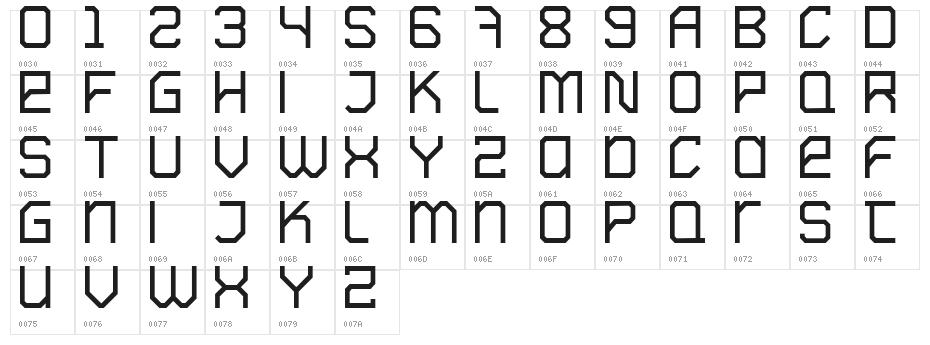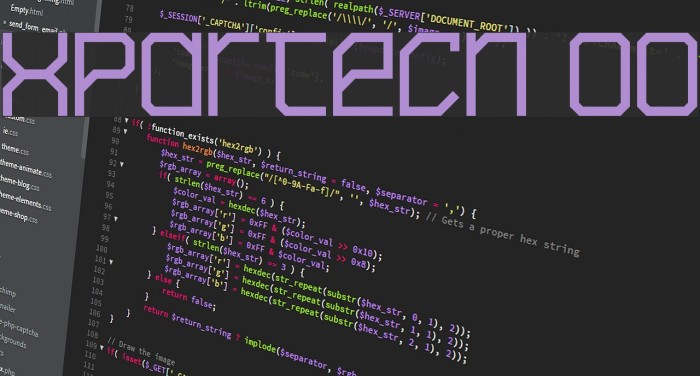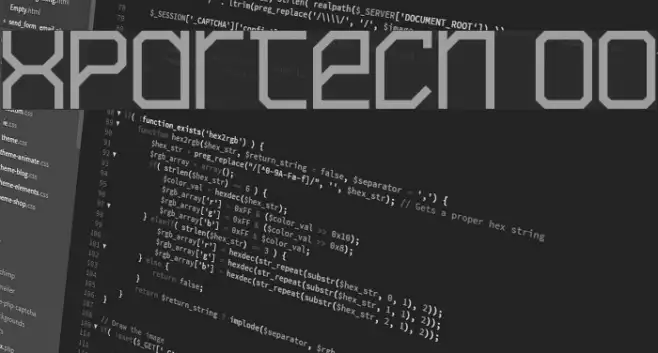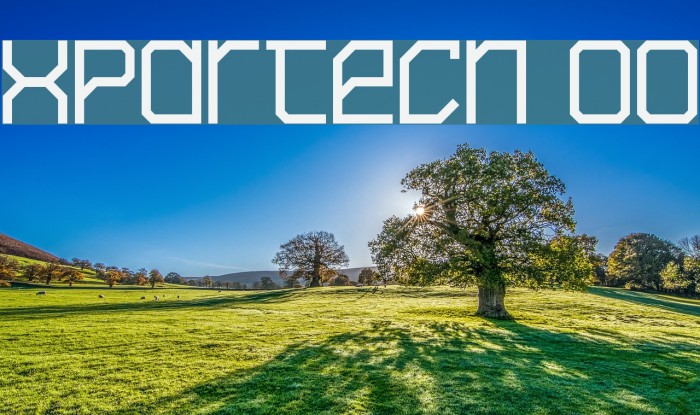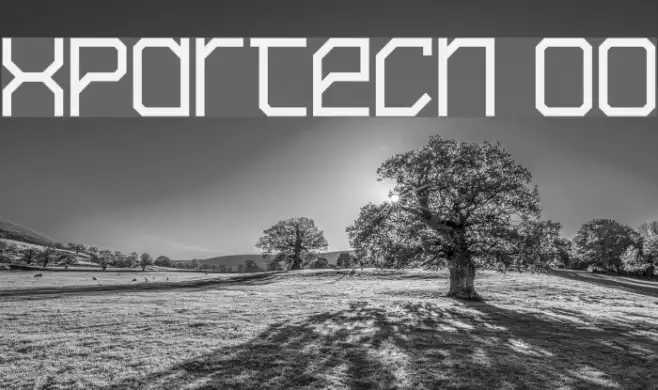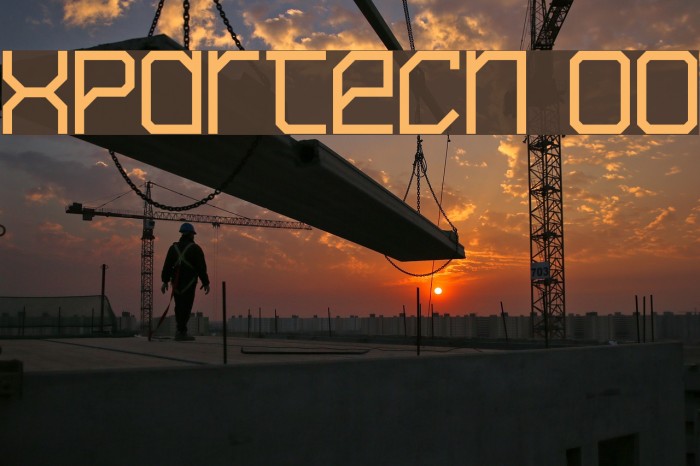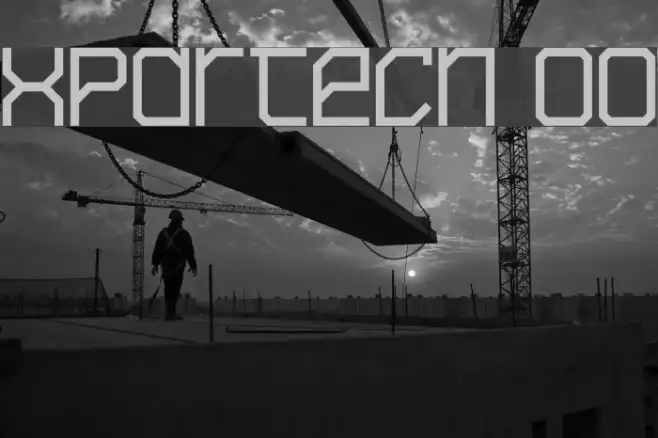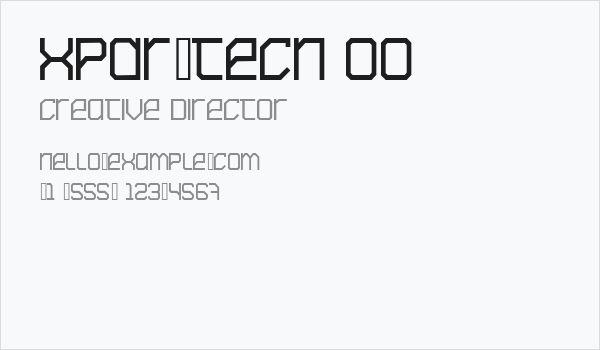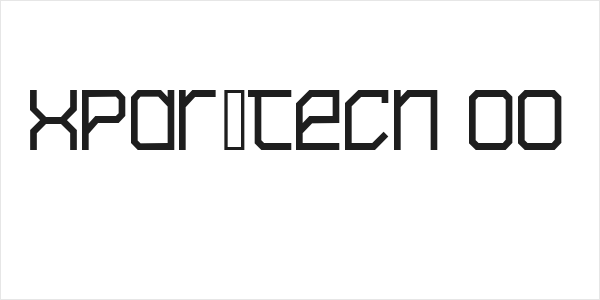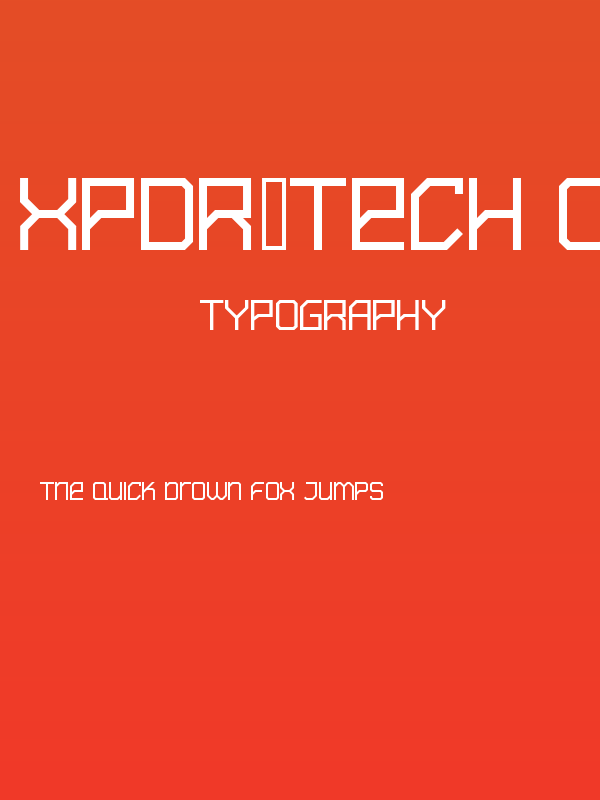
xpdr_tech 00 Font
xpdr_tech 00 Description
This font features a geometric and futuristic design, characterized by its angular and block-like structure. Each character is composed of straight lines and sharp angles, giving it a technical and modern appearance. The uniformity in stroke width across all characters contributes to a cohesive and structured look. The uppercase and lowercase letters maintain a consistent style, with the lowercase mirroring the uppercase in form but slightly reduced in size. Numerals and special characters follow the same design principles, ensuring a seamless integration with the alphabetic characters. This font's distinct style makes it ideal for projects that require a contemporary and tech-oriented aesthetic.
| Proposed Projects | Ideal for technology branding, video game interfaces, sci-fi themed designs, and digital displays. |